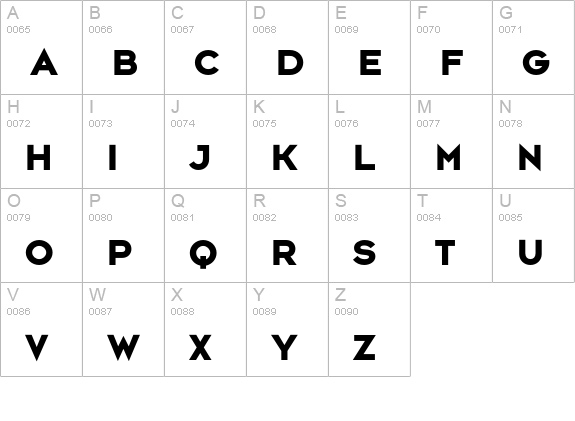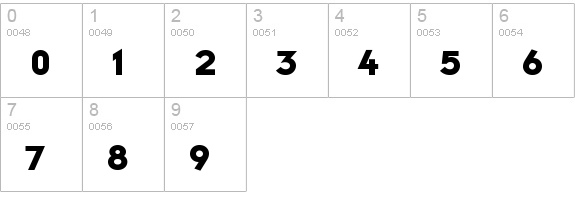
BonnBoldCaps Font Details
BonnBoldCaps is a striking and versatile font that exudes a bold and modern aesthetic. With its clean lines and strong presence, this font is perfect for making a statement in any design project. The all-caps style adds a touch of sophistication and professionalism to any text. What sets BonnBoldCaps apart is not only its visual appeal, but also its versatility. Whether you're designing a logo, poster, or website, this font will make your text stand out and leave a lasting impression. And the best part? BonnBoldCaps is available for free download at FontsMarket.com. That's right, you can get your hands on this stylish font without spending a dime. So why wait? Download BonnBoldCaps today and take your designs to the next level.